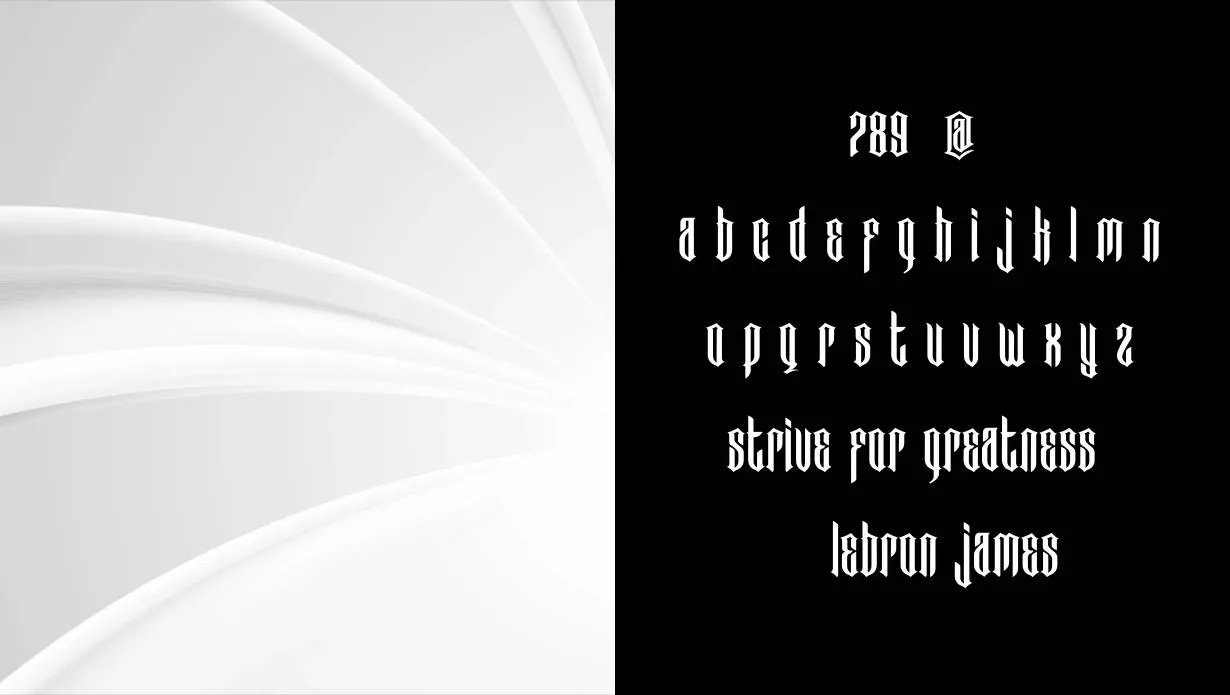
Bad Boys Font is a fancy typeface designed by Peter Bielous and published through Swiss foundry Type-O-Tones. This Font was originally designed as a fancy typeface for a corporate identity project. The font has a unique design that makes it perfect for any project that needs a fancy touch.
This font style has many unique glyphs including uppercase, lowercase, punctuations, numerals and numbers. You can also apply a great simple and useful countryside font that is available on an over-web portal and is ready to download.